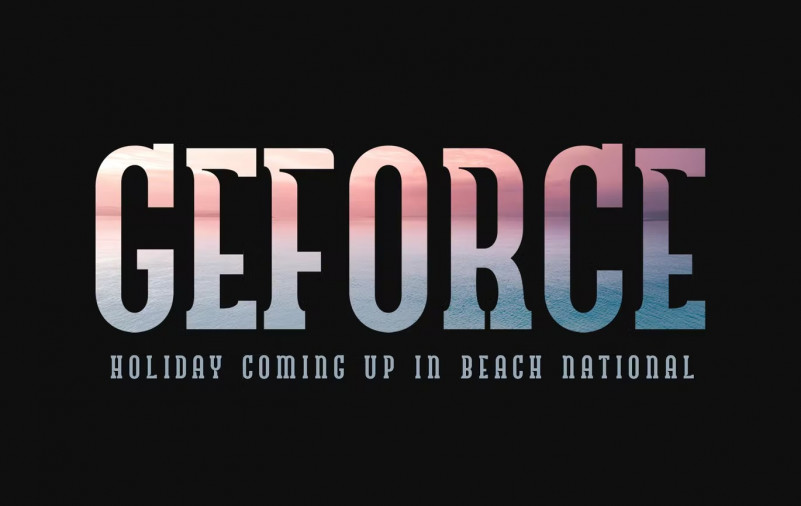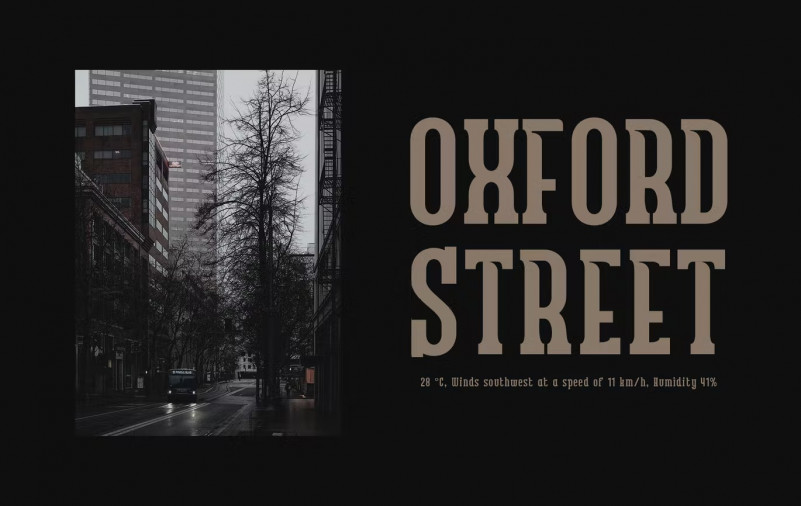
Westorn Font
Westorn is a special vintage style font. Made with accurate accuracy. It is perfect for branding design, logo, greeting cards, headline packaging. and other designs. Immediately use our fonts to make your work even more amazing.